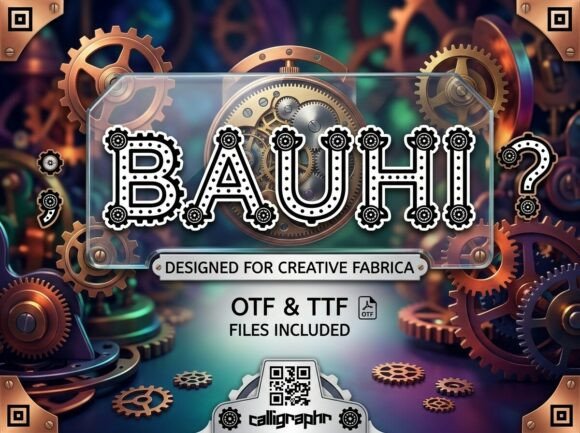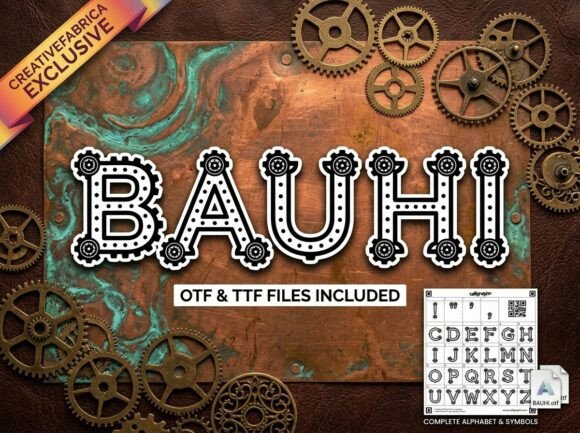
Introduction to Bauhi Font
Engineered for impact, Bauhi is a mechanical display typeface that captures an “industrial-and-inventive” soul.
This font features bold, architectural letterforms masterfully constructed from rhythmic gear wheels, rivets, and ironwork plating, evoking the gritty charm of a steampunk laboratory With its heavy structural weight and intricate technical personality, Bauhi is the premier choice for independent escape room branding, tabletop gaming manuals, retro-futuristic event posters, and high-impact “tinkered-and-tough” social media headers.